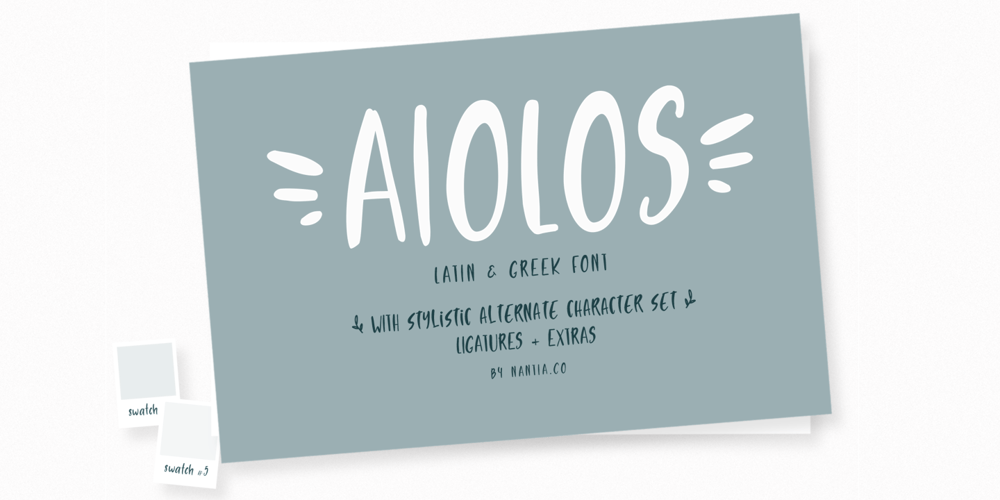
Aiolos Font Family was designed by Konstantina Louka and published by Nantia.co. Aiolos contains 1 styles and family package options. This font is a hand-made typeface with Greek Character support. With cute doodles icons in PUA encoding, this typeface can be a mighty companion to your next graphic design project. From “hand-written” quotes to product packaging, merchandise, and branding projects, this font is so versatile that it can cover them all.